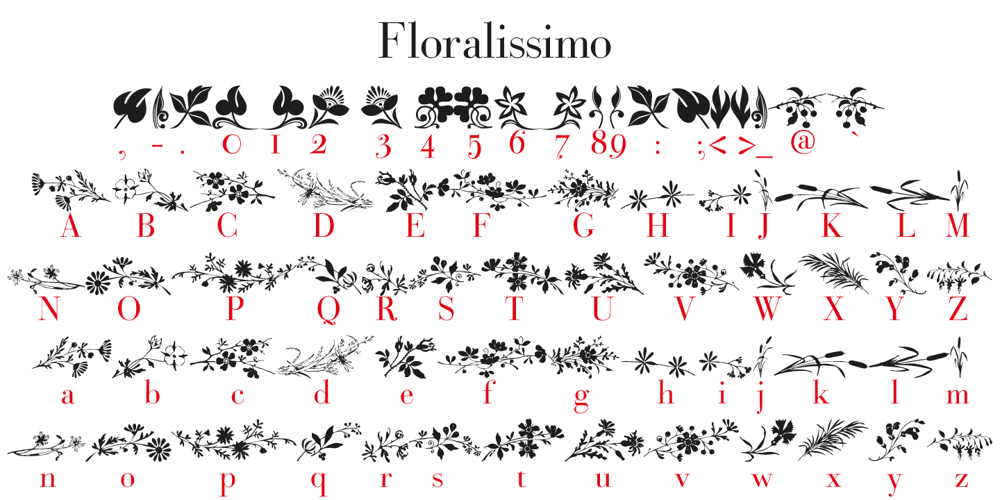
Floralissimo Font Family was designed by Gert Wiescher and published by Wiescher Design. Floralissimo contains 1 styles and family package options. Floralissimo are flowery embellishments that I found in several old publishing books dating back over a hundred years. I thought they might be useful for some of you, so I digitized them. Your digitizing typedesigner, Gert Wiescher